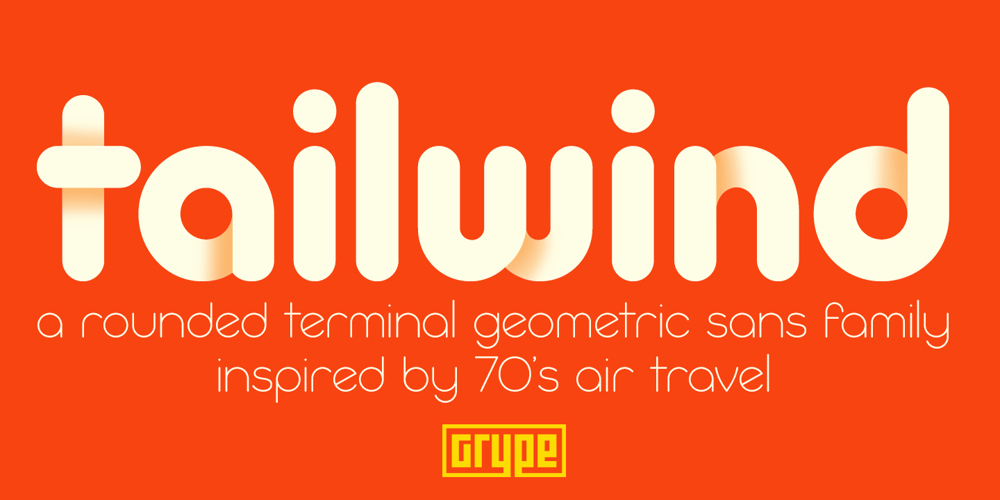
Tailwind Font Family was designed by Jim Lyles, Brian J. Bonislawsky and published by Grype. Tailwind contains 6 styles and family package options. The world of aviation is filled with clean and iconic logotypes, yet some of the earlier logotypes were friendly and simple. The Tailwind family finds its origin of inspiration in an early Air Jamaica company logo, and from there is expanded into a small but comprehensive font family. Tailwind celebrates the typographic stylings of the 70’s, with the soft rounded terminals and open geometric feel, transcending its brand inspired origin to give birth to a family that feels both retro and modern. It inherited the friendly stylings of the mostly lowercase logo that inspired it, and goes on to include a full standard character set with expansive international support of latin based languages, small caps styles, and three weights jumping from light to regular to a heavyweight black. This family is ready to chart a course for your designs towards that of a modern, comfortable appeal. Here’s what’s included with the Tailwind Collection bundle: 382 glyphs per style – including Capitals, Lowercase, Numerals, Punctuation and an extensive character set that covers multilingual support of latin based languages. (see the 6th graphic for a preview of the characters included) 6 fonts in 3 weights: Light, Regular, Black. Small Caps versions available in all weights. Fonts are provided in TTF & OTF formats. The TTF format is the standard go to for most users, although the OTF and TTF function exactly the same. Here’s why the Tailwind Collection is for you: You’re in need of a soft rounded font with a variety of weights with small caps for your designs You’re a retro airline junkie and have to have anything inspired by Air Jamaica You love VAG Rounded, but you really want something just a little different You really dig the Akademics & Bloomingdales logos, but would like a softer type in that genre You just like to collect quality fonts to add to your design arsenal